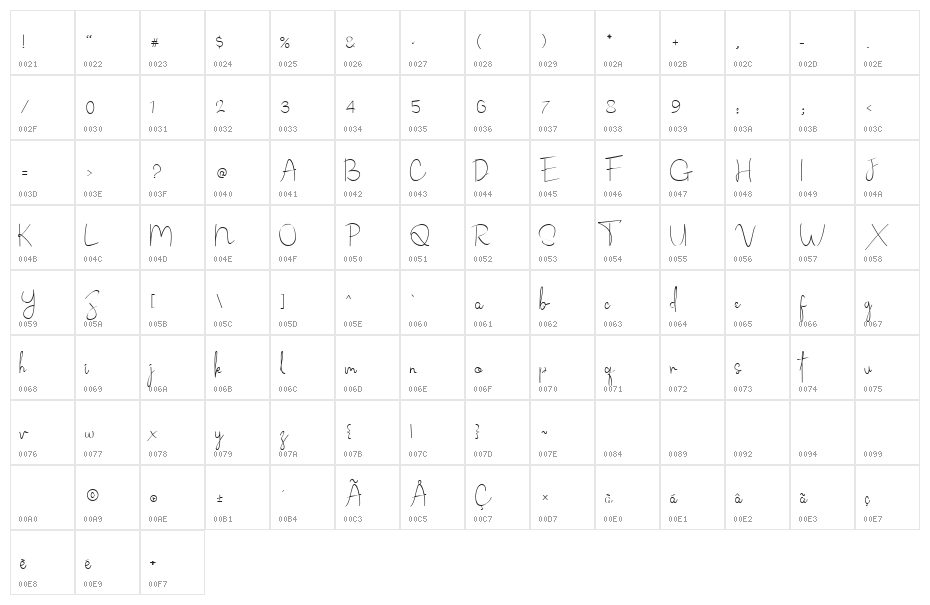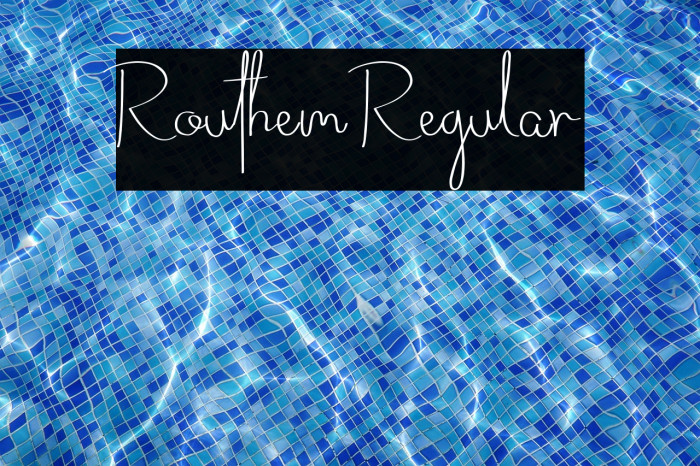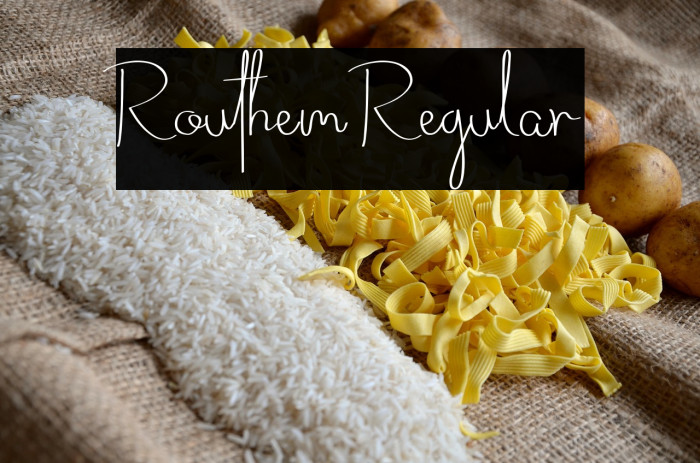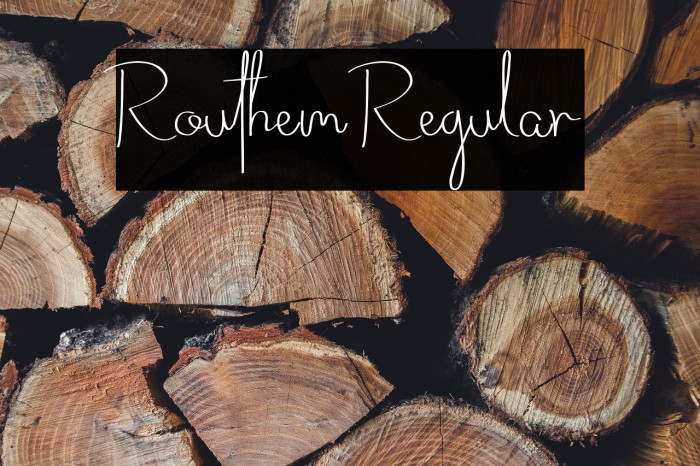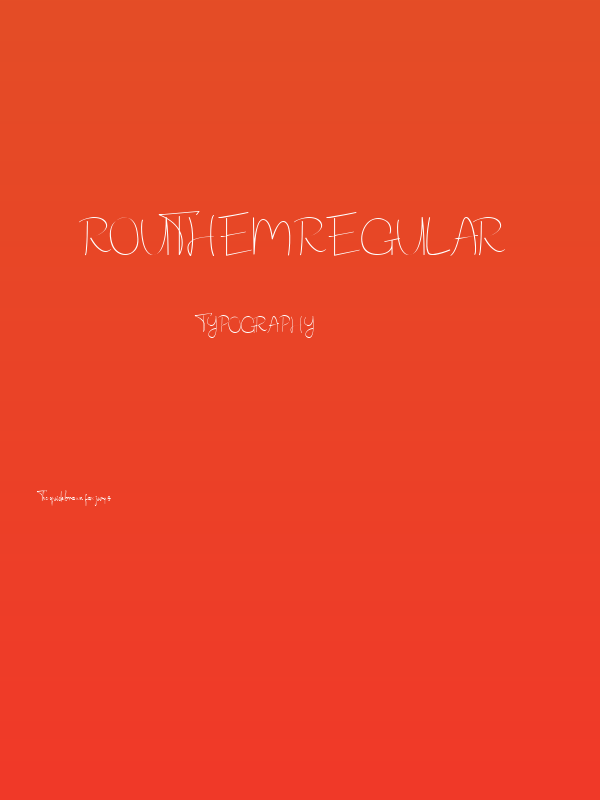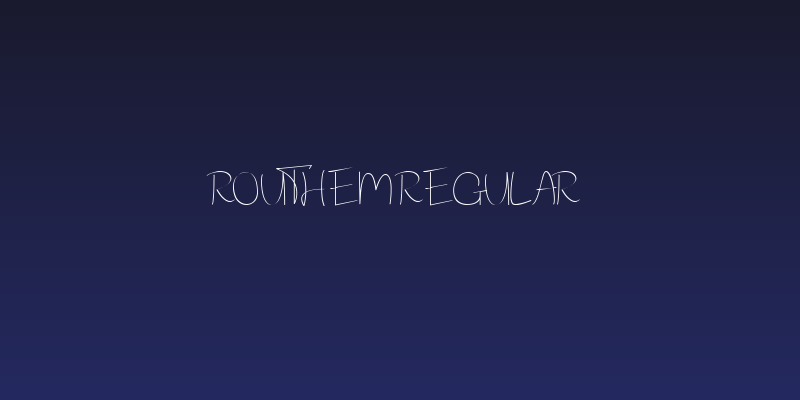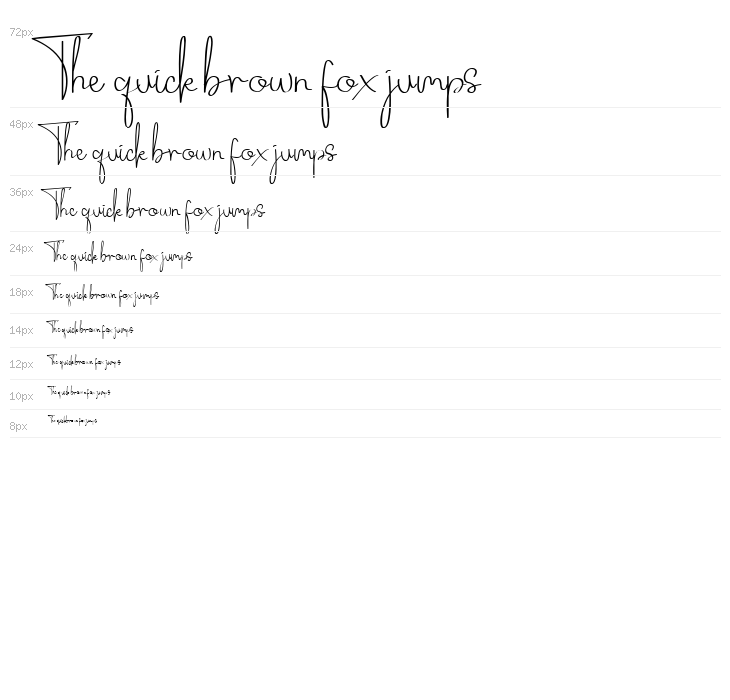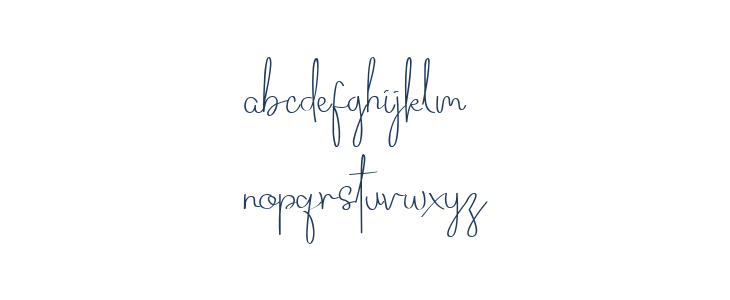
Routhem Regular Font
Routhem Regular Description
This font features a unique blend of elegance and modernity, characterized by its thin, flowing strokes and artistic flair. The uppercase letters exhibit a playful yet sophisticated style with elongated lines and subtle curves, creating a sense of movement and grace. The lowercase letters maintain this fluidity, offering a harmonious balance between formality and creativity. Numbers are clear and consistent, ensuring readability while maintaining the font's overall aesthetic. Special characters are thoughtfully designed, complementing the font's artistic nature. This font is perfect for projects that require a touch of elegance and modernity.
| Proposed Projects | Ideal for wedding invitations, branding, fashion magazines, and artistic posters. |